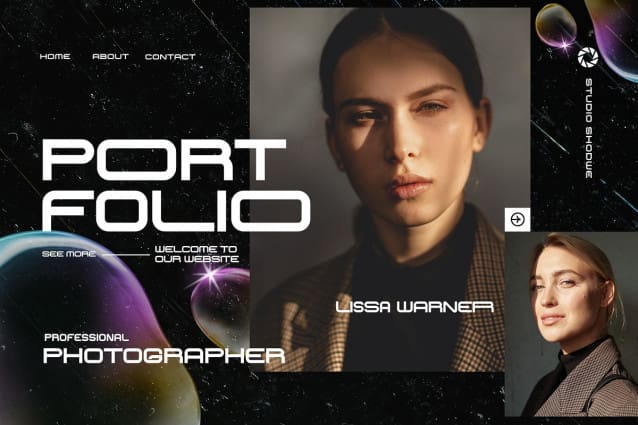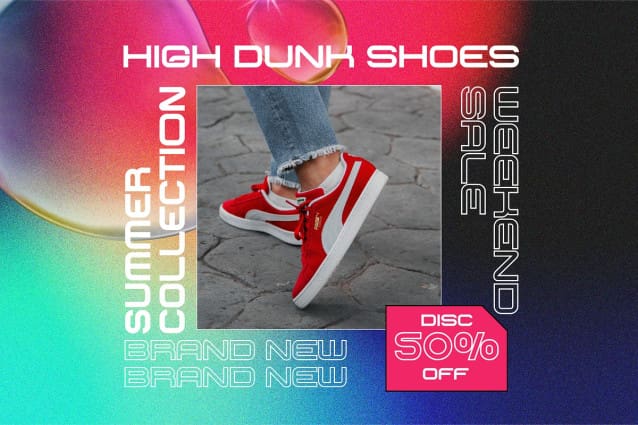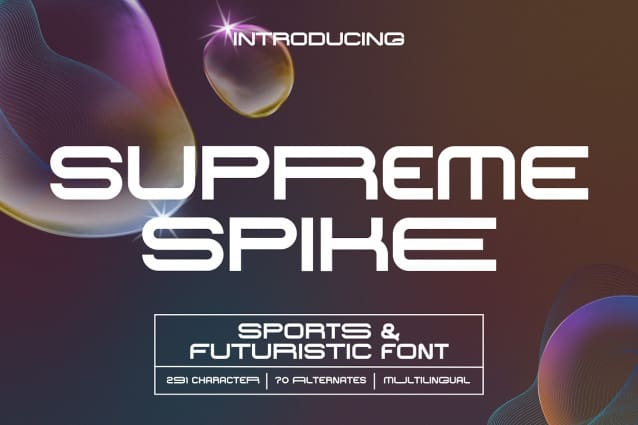
Supreme Spike Font
Supreme Spike Font a sans serif designed to add a masculine touch to any of your designs. With its bold lines and modern shapes, this font is perfect for themes that demand strength and precision, such as sports, futuristic, space, and more.
Achieve a dynamic and powerful look in every project with this revolutionary font. Elevate the aesthetics and visual appeal of your designs with our recommended font choice. Discover the power and uniqueness in every letter!